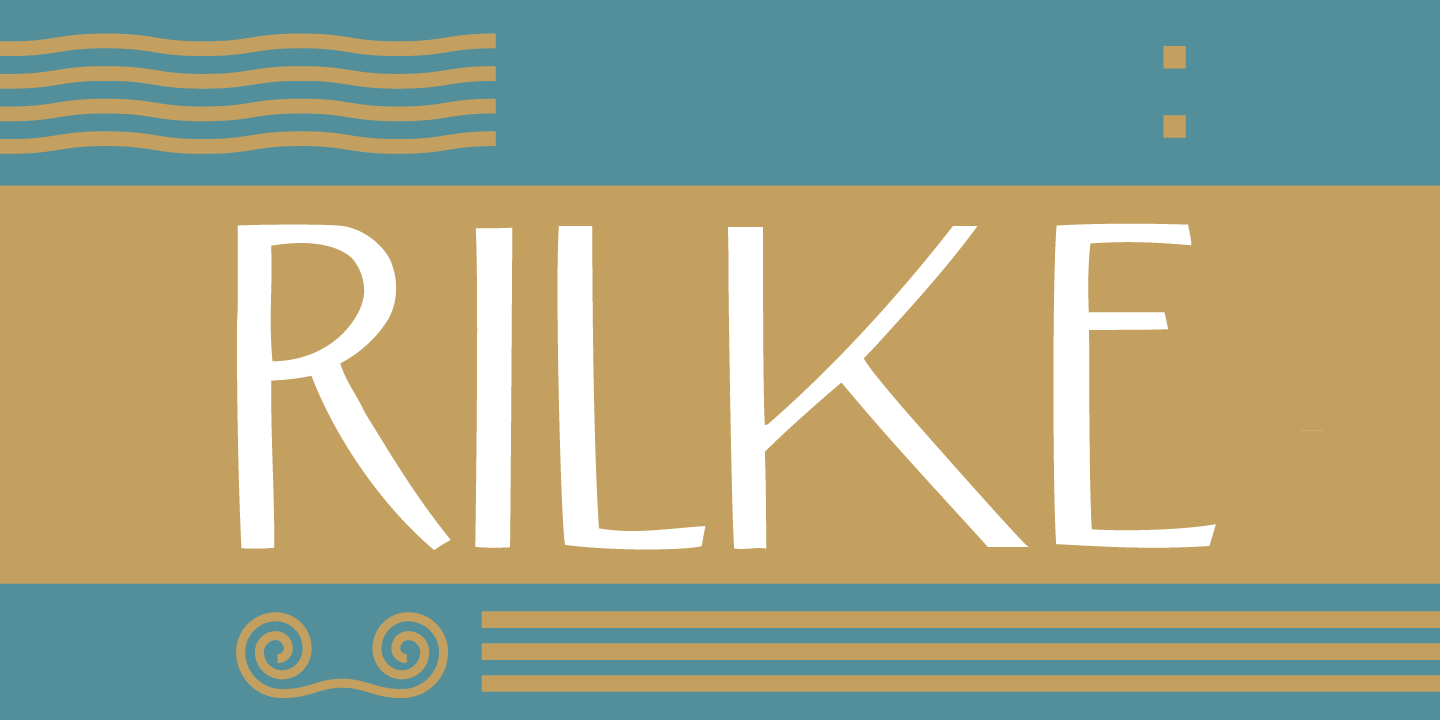
Rilke
About Rilke
Rilke is an adaptation of the lettering used by Gustav Klimt on his poster for the 1st Vienna Secession exhibition in 1898 and is named for Klimt\’s contemporary the poet Rainer Maria Rilke. The Vienna Secession was a group of artists who worked in a variety…